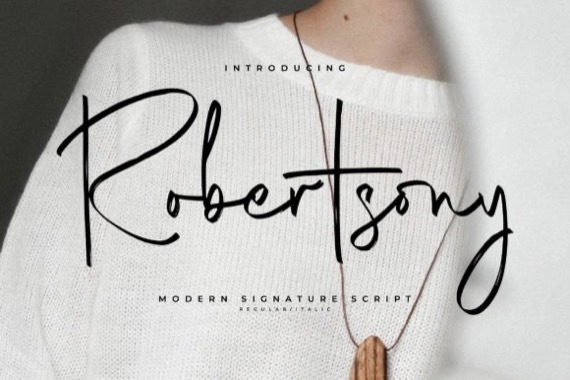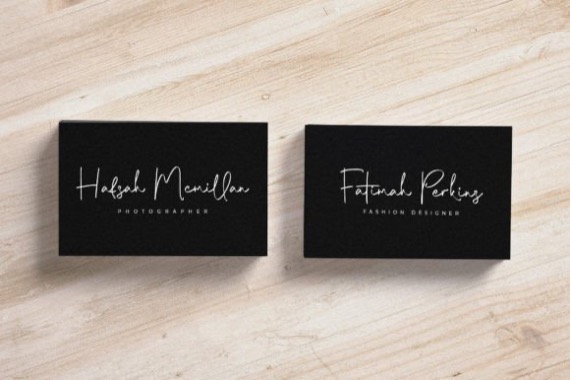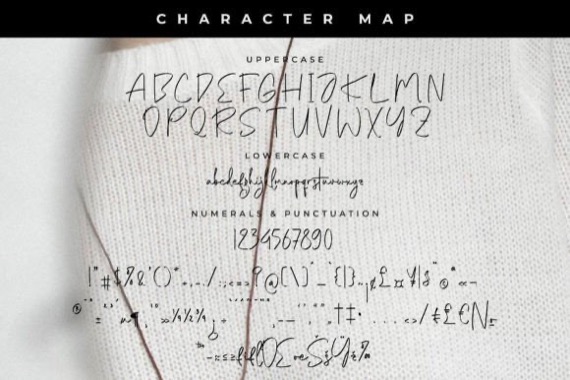
Robertsony is a chic and modern Signature Script font that was created and released by Glorytype Studio, suitable for any projects such as: logos, branding projects, homeware designs, product packaging, mugs, quotes, posters, shopping bags, t-shirts, book covers, name card, invitation cards, greeting cards, label, photography, watermark, special events, and all your other lovely projects that need a beautiful script taste.
Robertsony Handwritten Script Font